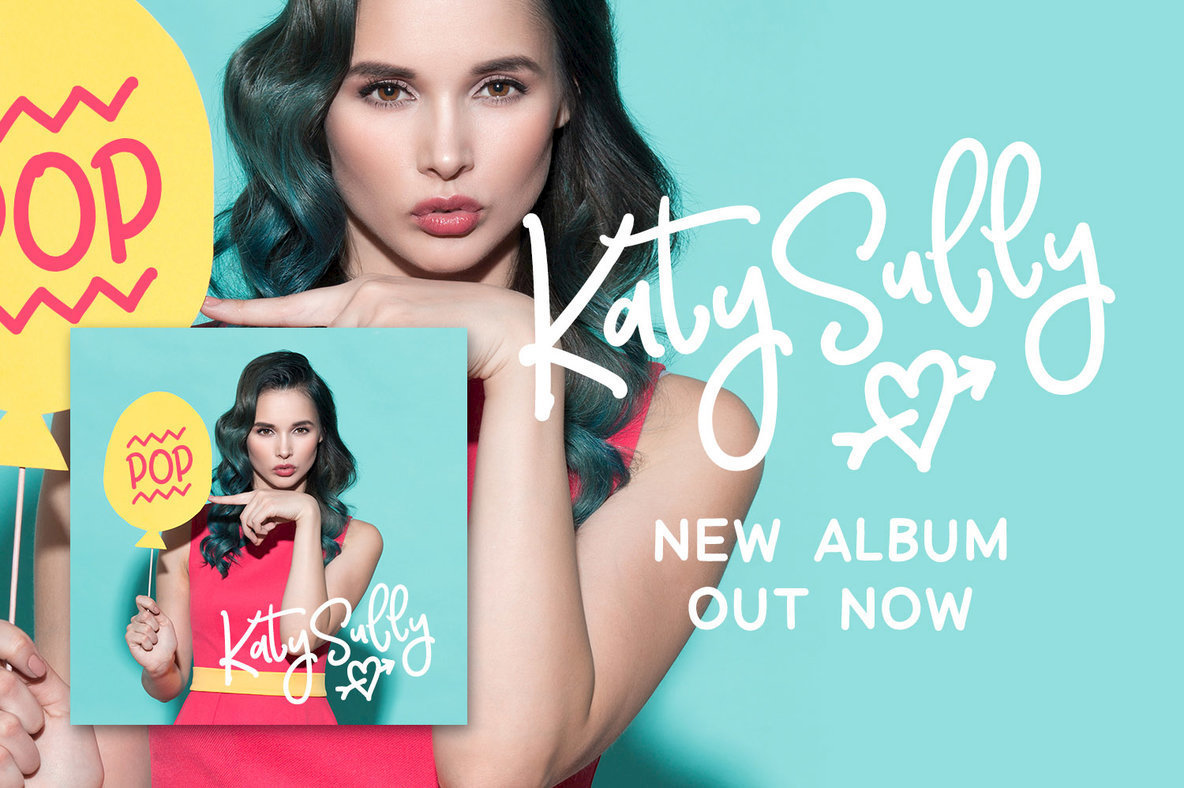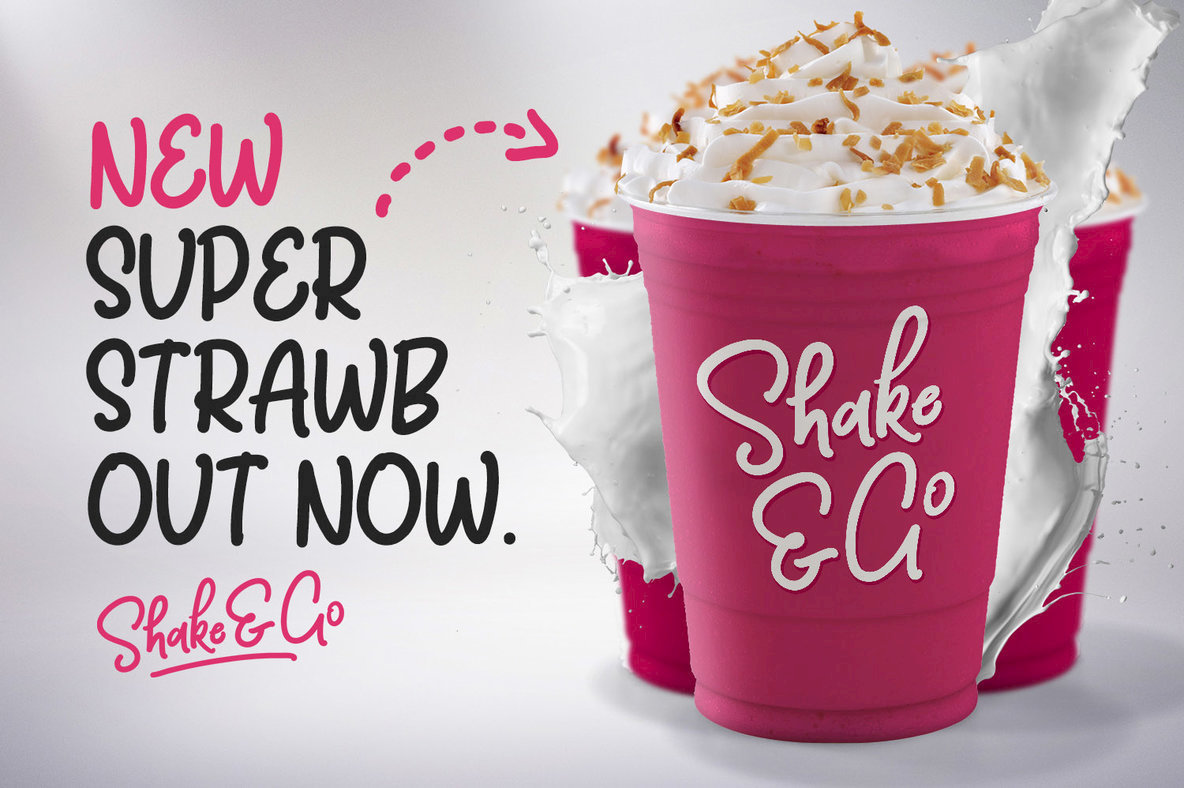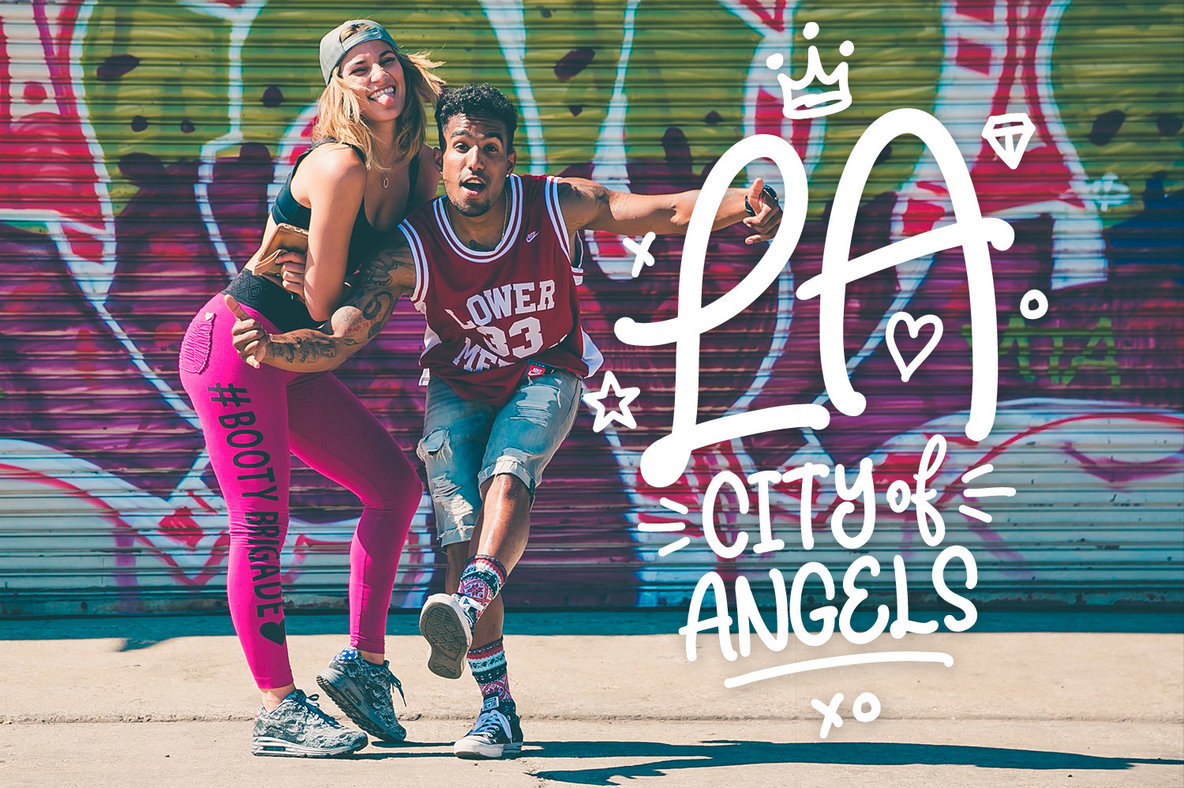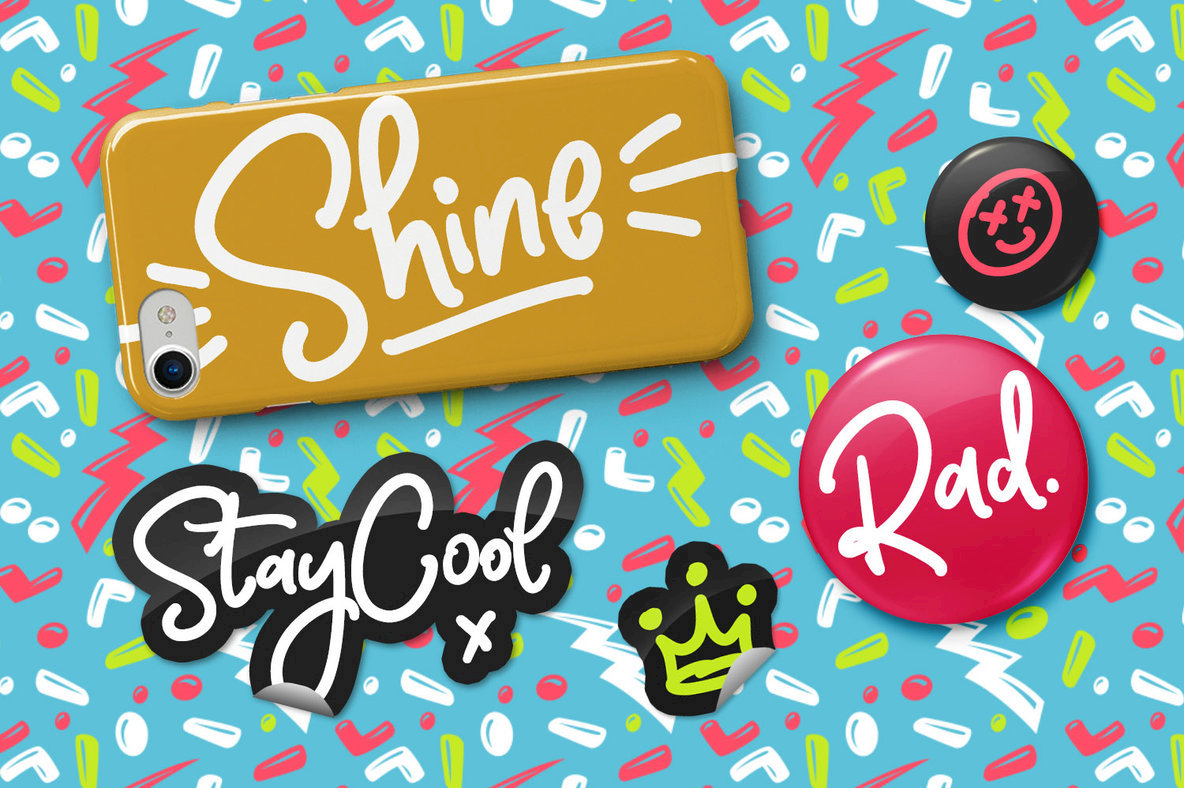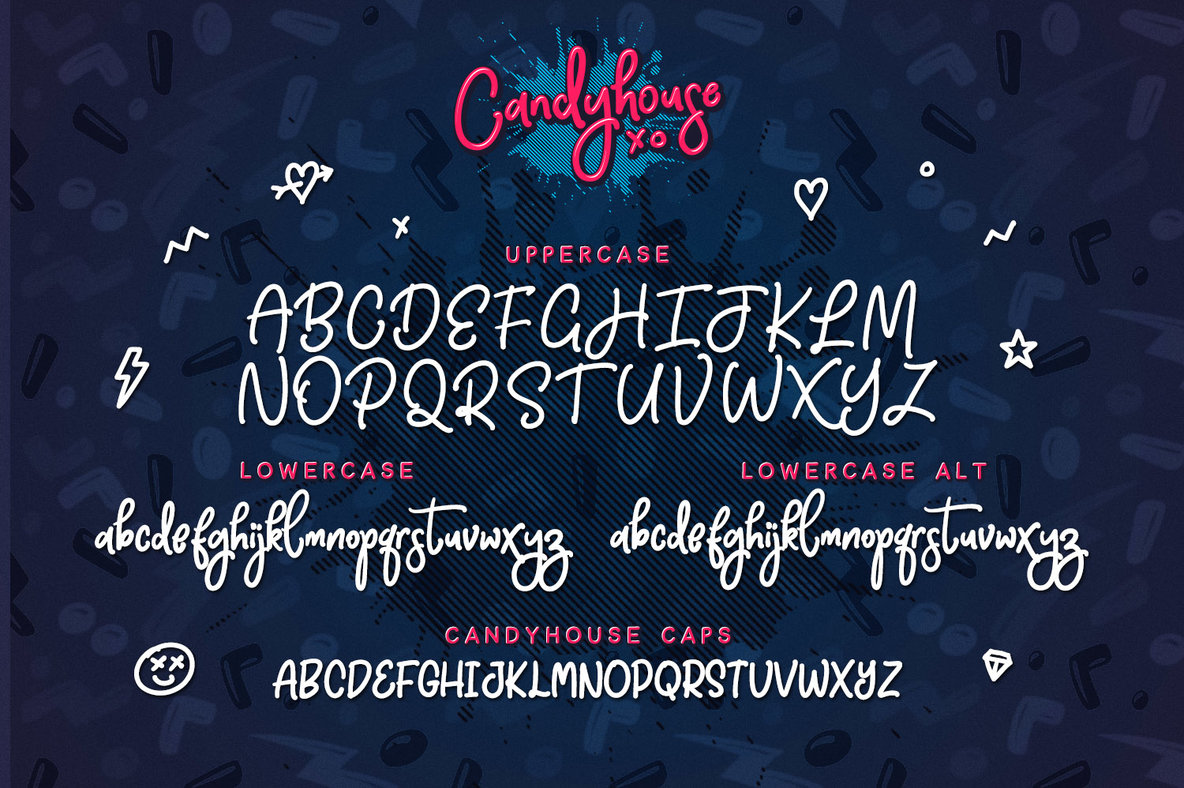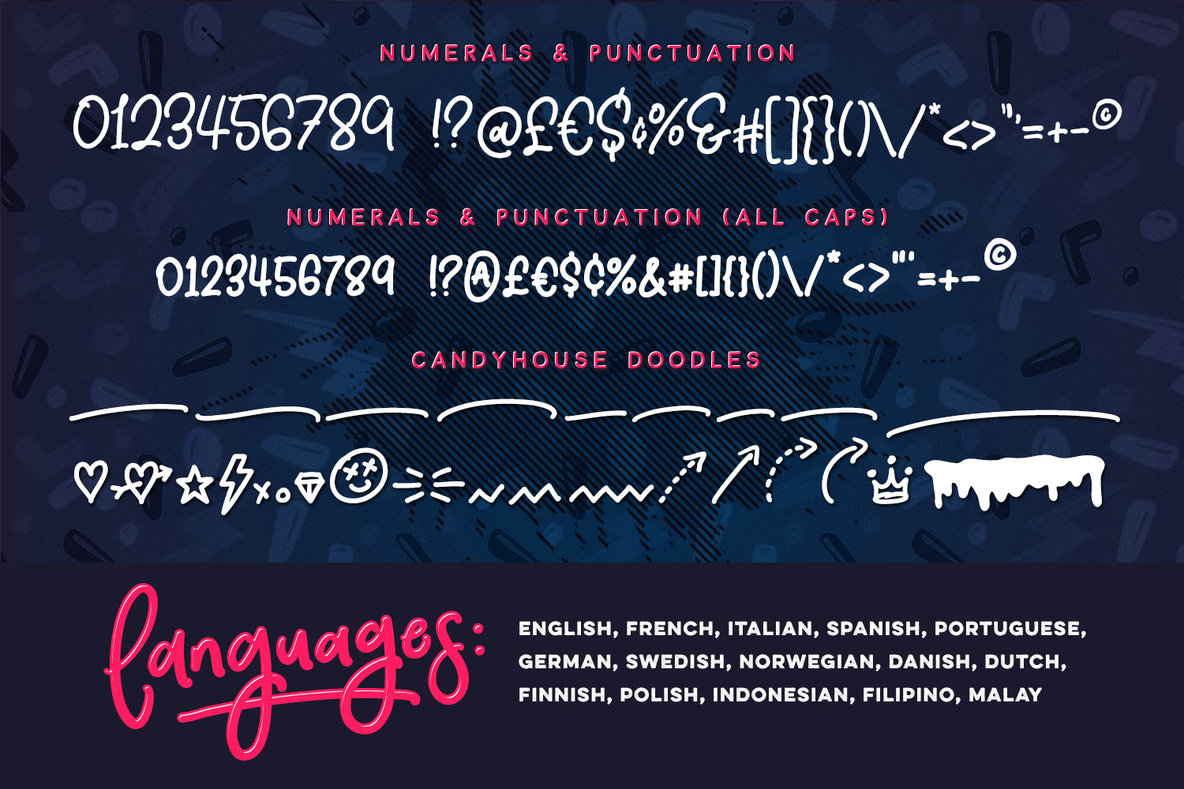
Candyhouse Font
Welcome to Candyhouse! It’s bold, playful, loopy & the party never stops!
Have you ever received the not-so-helpful design feedback “make it pop”? Well, Candyhouse might just be your answer! This hand drawn font set is perfect for injecting some bubbly energy into your project. The great thing about Candyhouse is that it’s not just a script font; it’s crammed full of extra goodies such as a complete set of alternate lowercase characters, an additional all-caps font, and a bonus set of 30 hand-drawn elements including doodles, swashes & arrows. All of these combined provides you with a huge range of layout options and fun ideas to experiment with.
1. Candyhouse • A hand drawn script font containing upper & lowercase characters, numerals and a large range of punctuation.
2. Candyhouse Alt • This is a second version of Candyhouse, with a completely new set of lowercase characters. If you wanted to avoid letters looking the same each time to recreate a custom-made style, or try a different word shape, simply switch to this font for an additional layout option.
3. Candyhouse Caps • An all-caps font containing uppercase-only characters, perfect for supporting text to compliment the Candyhouse script font. Also includes numerals and a large range of punctuation.
4. Candyhouse Doodles • Need a bit more visual appeal to your text? This bonus font includes 30 hand-drawn doodles, swashes and arrows which are the perfect companion to Candyhouse when you need that extra personalised touch. Simply install the font and type any a-z (swashes) or A-Z (doodles) letter to generate a doodle.